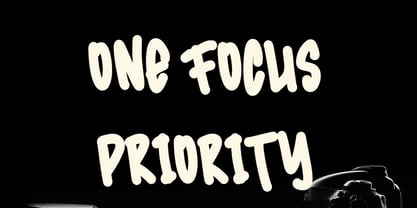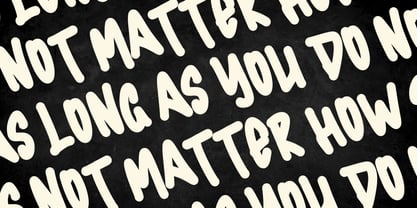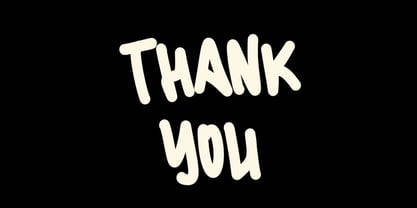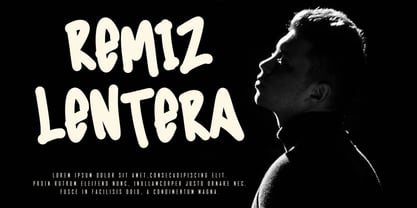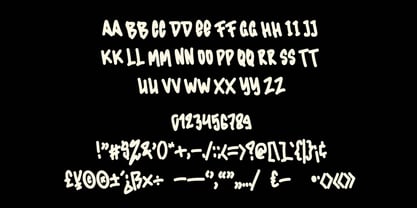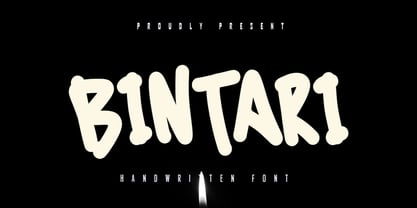
Bintari
von Skiiller Studio
Die Schriftfamilie Bintari wurde von Irfan Mahmudin entworfen und von Skiiller Studio veröffentlicht. Bintari enthält 1 Stile.
Bintari is a playful handwritten display font with bold, rounded letterforms and a fun, friendly personality. Its chunky strokes and unique shapes make it perfect for children’s designs, posters, branding, packaging, quotes, social media content, and creative projects that need a cheerful, eye-catching, and expressive handwritten style.....................
Designer: Irfan Mahmudin
Herausgeber: Skiiller Studio